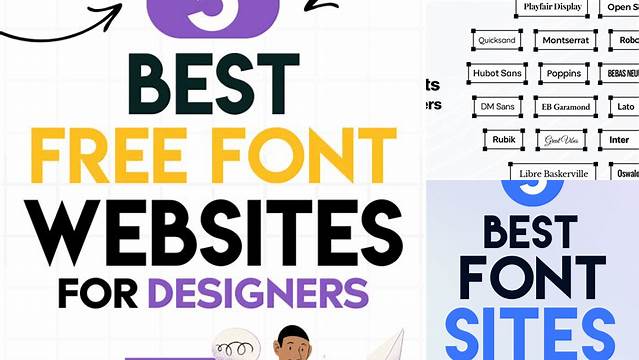
Top Free Font Websites For Designers
Hey guys! Finding the perfect font can be a game-changer for any design project. Whether you're crafting a sleek logo, designing a stunning website, or putting together a killer presentation, the right font can make all the difference. But let's be real, those premium fonts can be super pricey! That's why I've put together this guide to the best free font websites for designers. We're diving deep into the world of typography, exploring where you can find high-quality fonts without breaking the bank. So, grab your favorite beverage, settle in, and let's get started!
1. Best Websites for Free Fonts
Looking for the best websites for free fonts can feel like searching for a needle in a haystack, right? There are tons of options out there, but not all of them are created equal. We want fonts that are not only free but also high-quality and versatile enough for a variety of projects. Think about the type of projects you usually work on – are you into sleek and modern designs, or do you lean towards more classic and elegant styles? Knowing your needs will help you narrow down your search. The good news is, there are several fantastic resources out there that offer a wide selection of fonts that are free for commercial use. These sites often have robust search filters, allowing you to sort by style, weight, and other criteria, making it easier to find exactly what you're looking for. So, let's explore some of these top-notch resources and discover the best websites for free fonts that can elevate your designs!
2. High-Quality Free Fonts for Commercial Use
Speaking of elevating designs, finding high-quality free fonts for commercial use is crucial for professional projects. You don't want to end up with a font that looks amateurish or, even worse, has licensing restrictions that could get you into trouble down the line. That's why it's super important to do your research and make sure you're sourcing your fonts from reputable websites. When we talk about high-quality free fonts for commercial use, we're talking about fonts that are well-designed, legible, and come with the necessary licenses to use them in your work without worry. This means you can use them in logos, websites, marketing materials, and any other commercial projects without having to pay a dime or fear copyright infringement. Look for fonts that have a full character set, including uppercase and lowercase letters, numbers, punctuation, and special characters. A good font should also have multiple weights and styles, such as bold, italic, and condensed, to give you more flexibility in your designs. Let's dive into some resources that offer exactly that – high-quality free fonts for commercial use that will make your designs shine.
3. Dafont: A Popular Free Font Resource
Dafont is a name that often pops up when discussing free fonts, and for good reason. It's one of the most popular free font resources out there, boasting a massive library of fonts in virtually every style imaginable. Whether you're after something scripty and elegant, bold and impactful, or quirky and playful, Dafont likely has something that fits the bill. The sheer volume of fonts available on Dafont is both a blessing and a curse. On the one hand, you have an incredible amount of choice at your fingertips. On the other hand, it can be a little overwhelming to sift through everything to find the perfect font. Dafont's user-friendly interface does help somewhat, with clear categories and search filters that allow you to narrow down your options. However, it's important to note that not all fonts on Dafont are free for commercial use. Many are free for personal use only, so it's essential to check the licensing information for each font before you use it in a commercial project. Despite this caveat, Dafont remains a popular free font resource for designers looking for variety and inspiration. Just remember to double-check those licenses!
4. Google Fonts: A Reliable Free Font Library
If you're looking for a reliable free font library, Google Fonts is a fantastic place to start. It's a curated collection of open-source fonts that are free to use for both personal and commercial projects. This means you can use them in anything from your personal blog to your client's website without worrying about licensing fees or restrictions. One of the best things about Google Fonts is its ease of use. The fonts are hosted on Google's servers, so you can easily embed them into your website or design software with just a few lines of code. This makes it incredibly convenient to experiment with different fonts and see how they look in your designs. Google Fonts also offers a wide variety of styles, from classic serif fonts like Roboto Slab to modern sans-serif fonts like Montserrat. Plus, the library is constantly growing, with new fonts being added regularly. If you need a reliable free font library that offers high-quality fonts and hassle-free licensing, Google Fonts is definitely worth checking out.
5. Font Squirrel: Free Fonts for Commercial Projects
Font Squirrel is another excellent resource for free fonts, especially if you're working on commercial projects. What sets Font Squirrel apart is its focus on offering fonts that are 100% free for commercial use. This means you can confidently use any font you find on the site in your client work, marketing materials, or any other commercial project without worrying about licensing issues. Font Squirrel also takes pride in curating a selection of high-quality fonts. They don't just accept any font submission; they carefully review each one to ensure it meets their standards for quality and legibility. This means you can trust that the fonts you find on Font Squirrel are well-designed and suitable for professional use. The website also offers a handy Font Identifier tool, which allows you to upload an image of a font and get suggestions for similar fonts available on the site. This can be a real lifesaver when you're trying to match a particular font style. Overall, Font Squirrel is a top-notch resource for free fonts that you can rely on for your commercial projects.
6. Adobe Fonts: Free with Adobe Subscription
For those of you who are already rocking an Adobe Creative Cloud subscription, you've got a treasure trove of fonts at your fingertips with Adobe Fonts. This is a fantastic resource because it gives you access to thousands of high-quality fonts that are included as part of your subscription. No extra fees, no hidden costs – just a vast library of typography to explore. Adobe Fonts integrates seamlessly with Adobe Creative Cloud apps like Photoshop, Illustrator, and InDesign, making it super easy to browse, activate, and use fonts in your designs. You can activate as many fonts as you need, and they'll be available across all your Adobe apps. What's really cool about Adobe Fonts is the quality and variety of the font selection. You'll find fonts from some of the world's top type foundries, ensuring that you're using professional-grade typography in your projects. Plus, Adobe adds new fonts regularly, so there's always something fresh to discover. If you're an Adobe Creative Cloud user, make sure you're taking advantage of Adobe Fonts – it's a game-changer!
7. Free Fonts for Graphic Design
Let's get specific about free fonts for graphic design. Graphic design is a broad field, encompassing everything from logo design and branding to web design and print layouts. The fonts you choose will depend heavily on the specific project you're working on and the message you're trying to convey. For example, a sleek and modern logo might call for a clean sans-serif font, while a vintage-inspired poster might look great with a decorative serif font. When searching for free fonts for graphic design, think about the overall aesthetic you're aiming for. Are you going for a minimalist look? A bold and impactful feel? A whimsical and playful vibe? Once you have a clear idea in mind, you can start narrowing down your options. Look for fonts that are legible, versatile, and appropriate for the context. Consider factors like font weight, style variations (bold, italic, etc.), and character set. The best free fonts for graphic design will help you create visually stunning and effective designs that communicate your message clearly and professionally.
8. Free Fonts for Web Design
When it comes to free fonts for web design, there are some specific considerations to keep in mind. Web fonts need to be legible on screens of all sizes, from large desktop monitors to small mobile devices. They also need to load quickly so they don't slow down your website. That's why it's important to choose fonts that are optimized for web use. Google Fonts is a particularly great resource for free fonts for web design because all the fonts are hosted on Google's servers and designed to load quickly. You can easily embed them into your website using a simple code snippet. When selecting free fonts for web design, think about readability. Sans-serif fonts tend to work well on screens, but some serif fonts can also be effective. Pay attention to the font's x-height (the height of the lowercase letters) and its overall design. A font with a good x-height and clear letterforms will be easier to read online. Also, consider the font's weight and style variations. You'll want a font that offers different weights (regular, bold, etc.) and styles (italic, etc.) so you can create visual hierarchy and emphasis on your website.
9. Free Fonts for Logo Design
Logo design is a critical aspect of branding, and the font you choose for a logo can have a huge impact on how the brand is perceived. Free fonts for logo design need to be carefully selected to ensure they align with the brand's personality and values. A logo font should be unique, memorable, and legible in various sizes and formats. When searching for free fonts for logo design, think about the brand's overall message and target audience. Is the brand modern and tech-savvy? Classic and sophisticated? Fun and playful? The font should reflect these qualities. Consider the font's style (serif, sans-serif, script, etc.) and its individual characteristics. Look for fonts that have a distinctive flair but are still easy to read. Avoid fonts that are overly trendy or decorative, as they may not stand the test of time. It's also important to check the font's licensing terms to ensure you can use it for commercial purposes, including in a logo. With the right free fonts for logo design, you can create a strong and impactful visual identity for your brand.
11. Top Free Serif Fonts
On the other end of the spectrum, we have serif fonts. While sans-serif fonts are often associated with modernity, top free serif fonts bring a touch of tradition, elegance, and authority to your designs. Serif fonts have those little strokes or